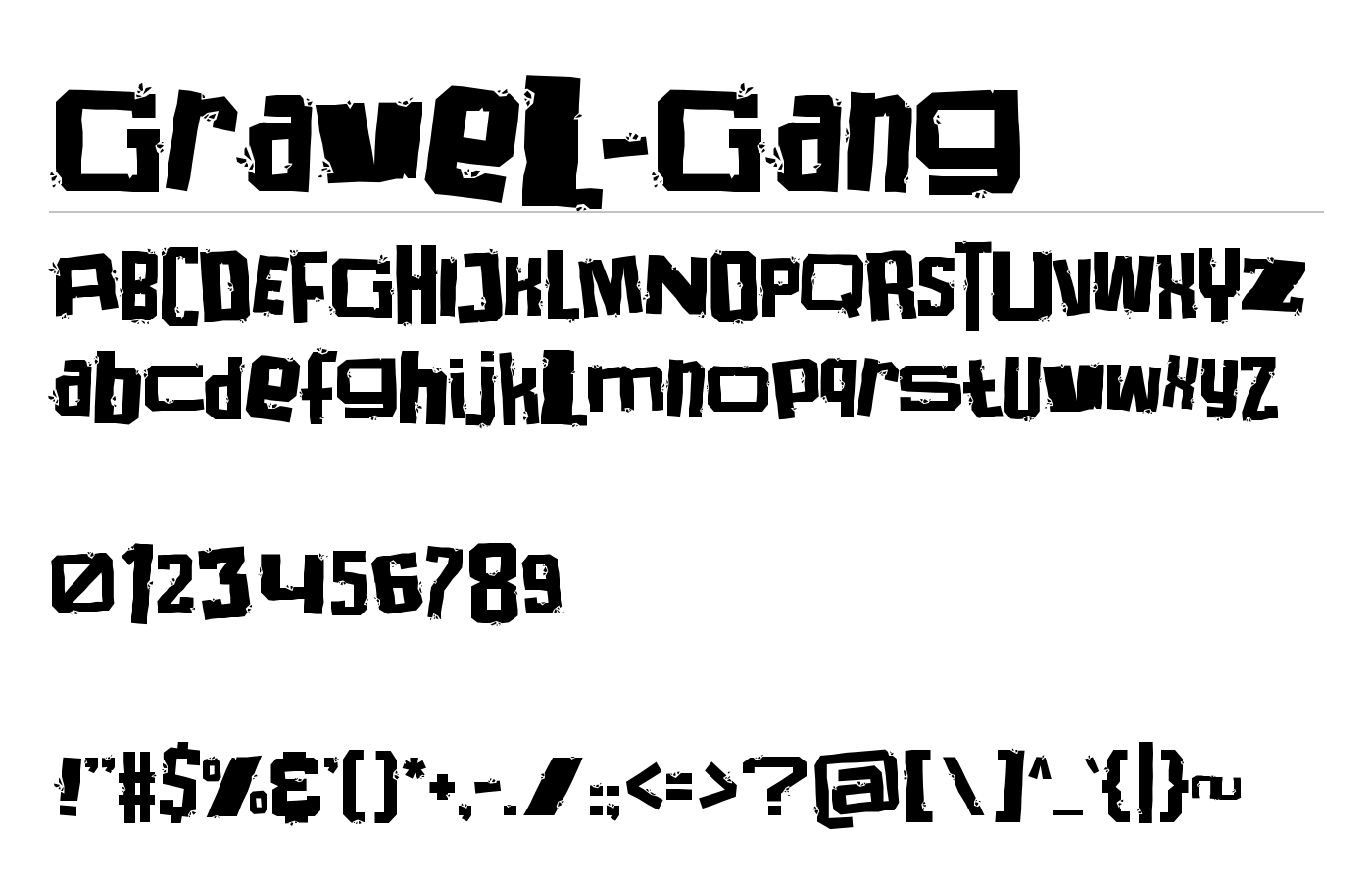
Gravel Gang is a bold, blocky sans serif font with a rugged, distressed texture that adds a gritty, urban edge to its strong, irregular letterforms. Its heavy weight and tight spacing make it stand out vividly, perfect for designs that need to convey toughness, rebellion, or street-style energy. This font works best in headlines, posters, and branding that aim to capture a bold, raw, and dynamic vibe.
Gravel Gang Font
About Gravel Gang Font